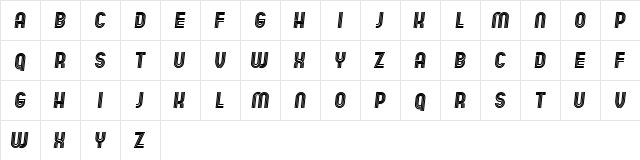
Formula Italic
Design Context for Formula Typeface
Formula offers clean, dependable letterforms without strong stylistic allegiance, making it a practical choice for designers who need flexibility. Its italic angle brings a sense of urgency and motion to the letterforms.
Pro Tip: Use Formula for emphasis, pull quotes, and subheadings where its slanted energy can add rhythm to the layout.